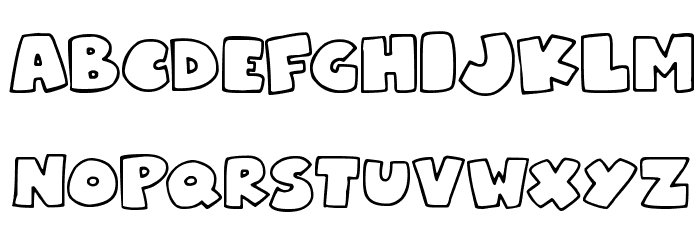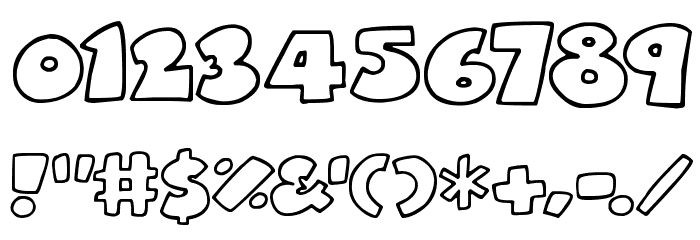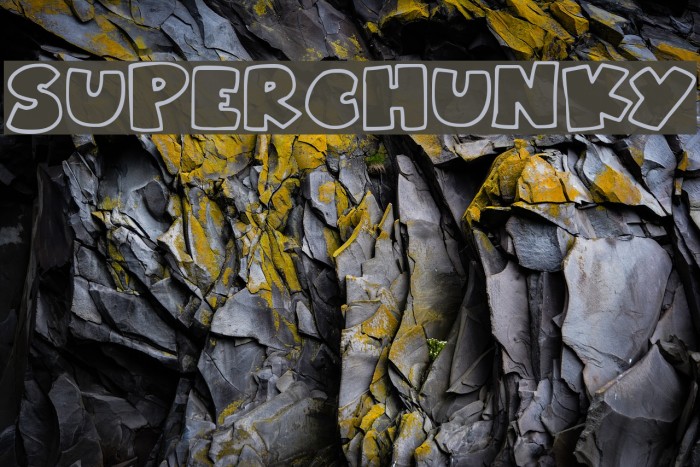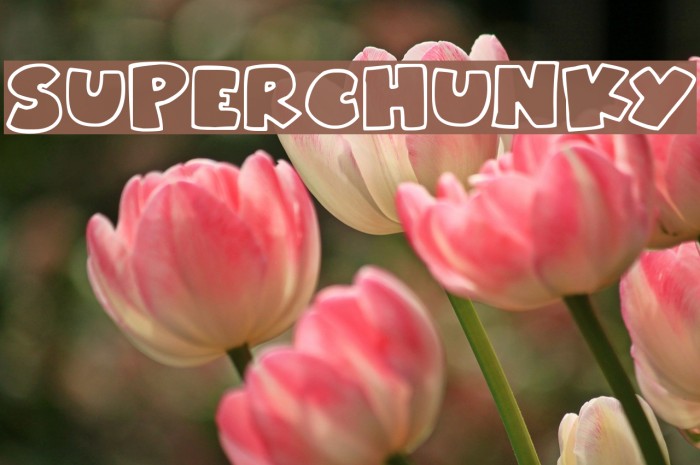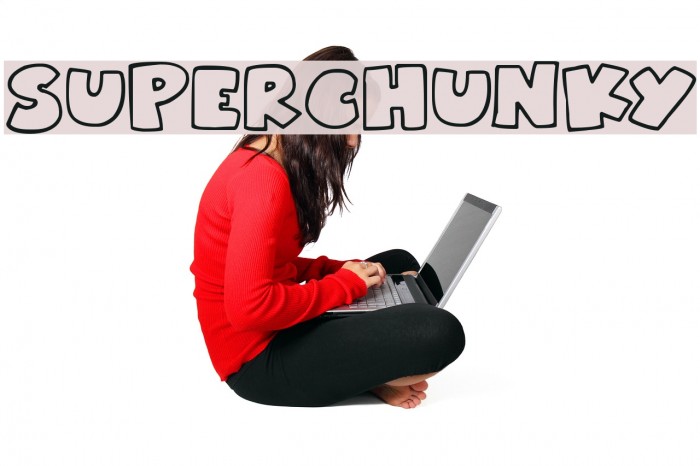
Superchunky Font
This font features a bold, playful style with thick, rounded edges and a chunky appearance. The characters are uniformly wide, giving a sense of stability and strength. The uppercase and lowercase letters maintain a consistent weight, contributing to a cohesive look. The numbers and special characters follow the same design principles, ensuring uniformity across all glyphs. The font's exaggerated curves and soft edges make it ideal for projects that require a fun and approachable aesthetic. Its boldness ensures high visibility, making it suitable for eye-catching designs.
A bold, playful font with thick, rounded edges and a chunky appearance.
- Proposed Projects: Ideal for children's books, playful branding, posters, and any design requiring a fun, approachable look.
- Overall Style: Playful